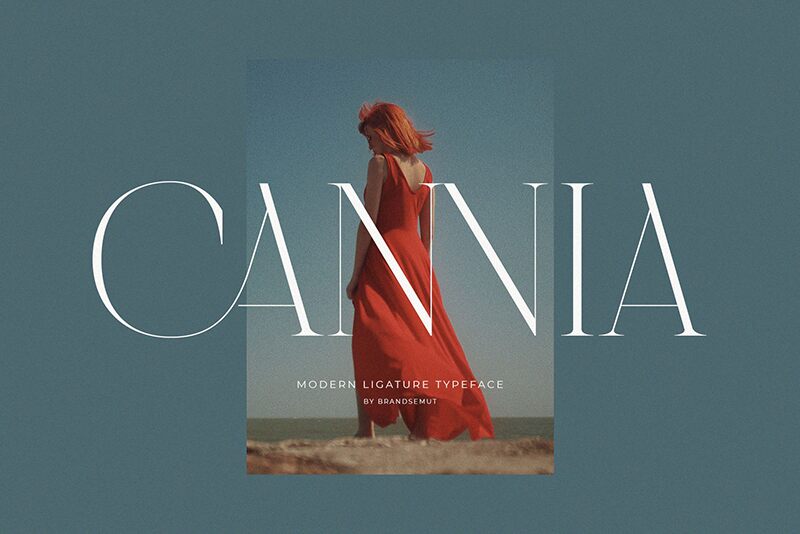
Introducing Cannia, a modern ligature serif font designed by Brandsemut. With its light weight, Cannia is perfect for creating vibrant logos and titles that stand out. It also suits editorial designs, posters, and other creative projects requiring an eye-catching touch.